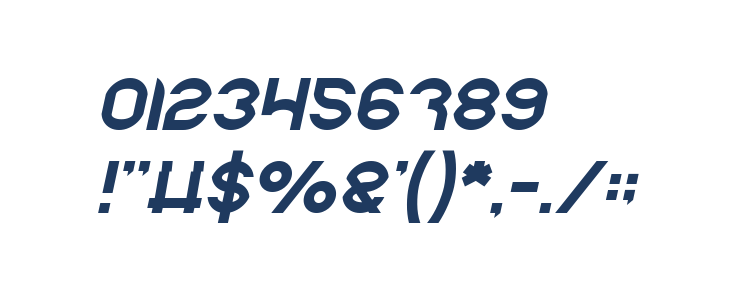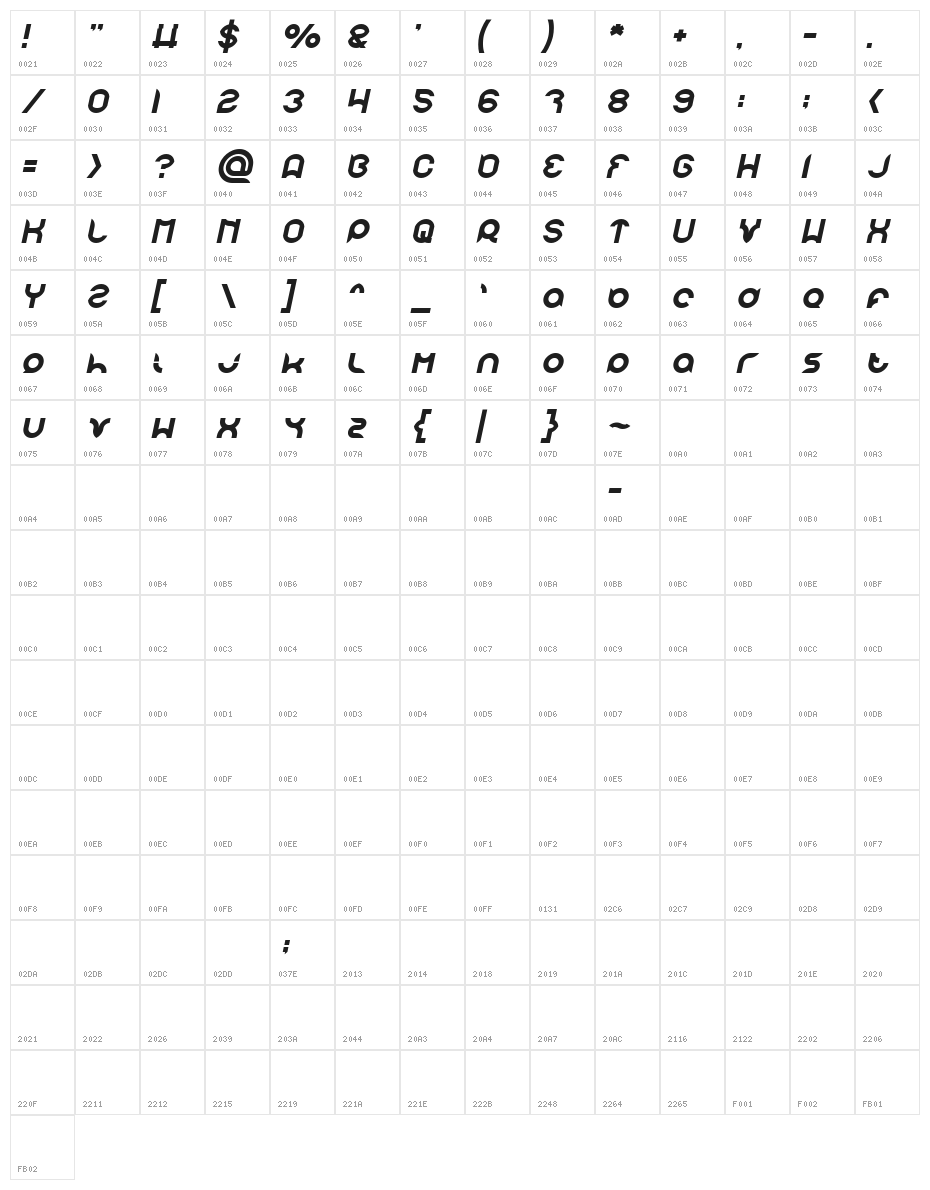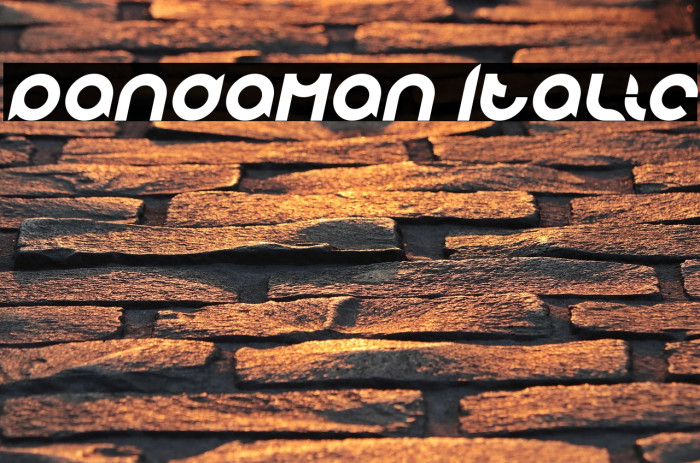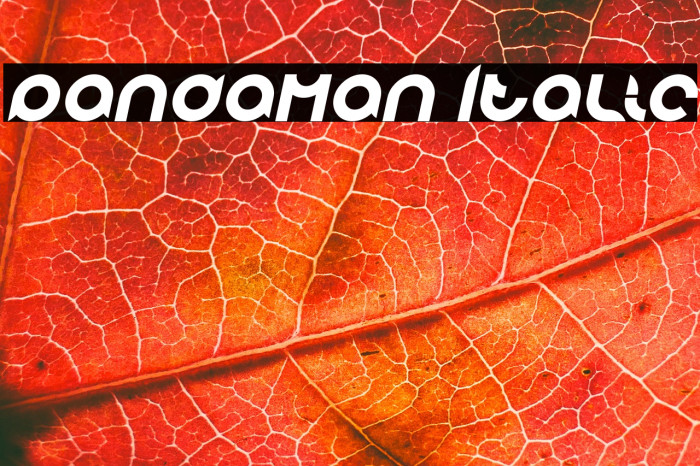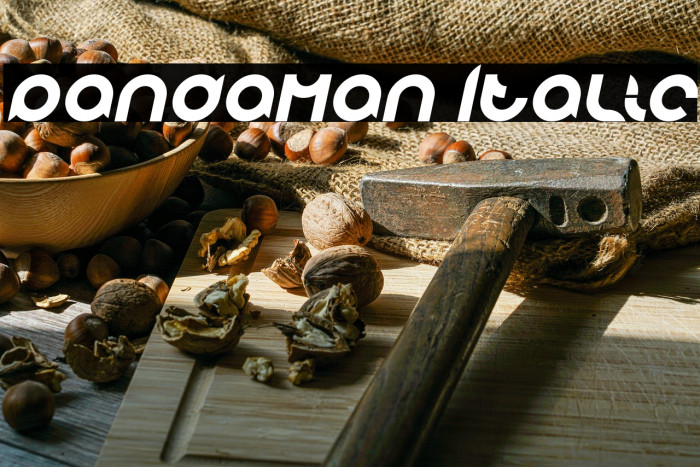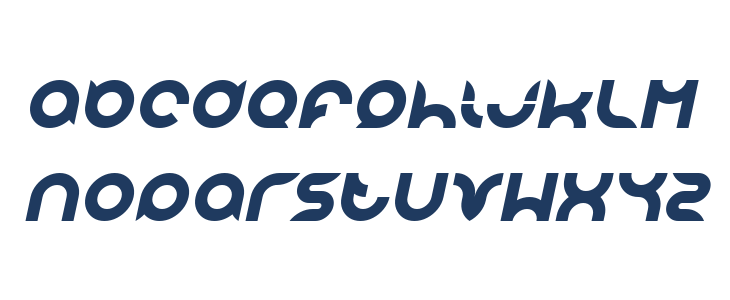
pandaman Italic Font
pandaman Italic Description
This font features a bold and dynamic style with a distinct italic slant, giving it a sense of motion and energy. The characters are thick and robust, with a modern flair that combines rounded edges and sharp angles. The uppercase and lowercase letters maintain a consistent style, while the numerals and special characters complement the overall aesthetic. The font's design is both eye-catching and versatile, suitable for a variety of applications where a strong visual impact is desired.
| Proposed Projects | Ideal for sports branding, dynamic posters, modern advertising, and eye-catching headlines. |